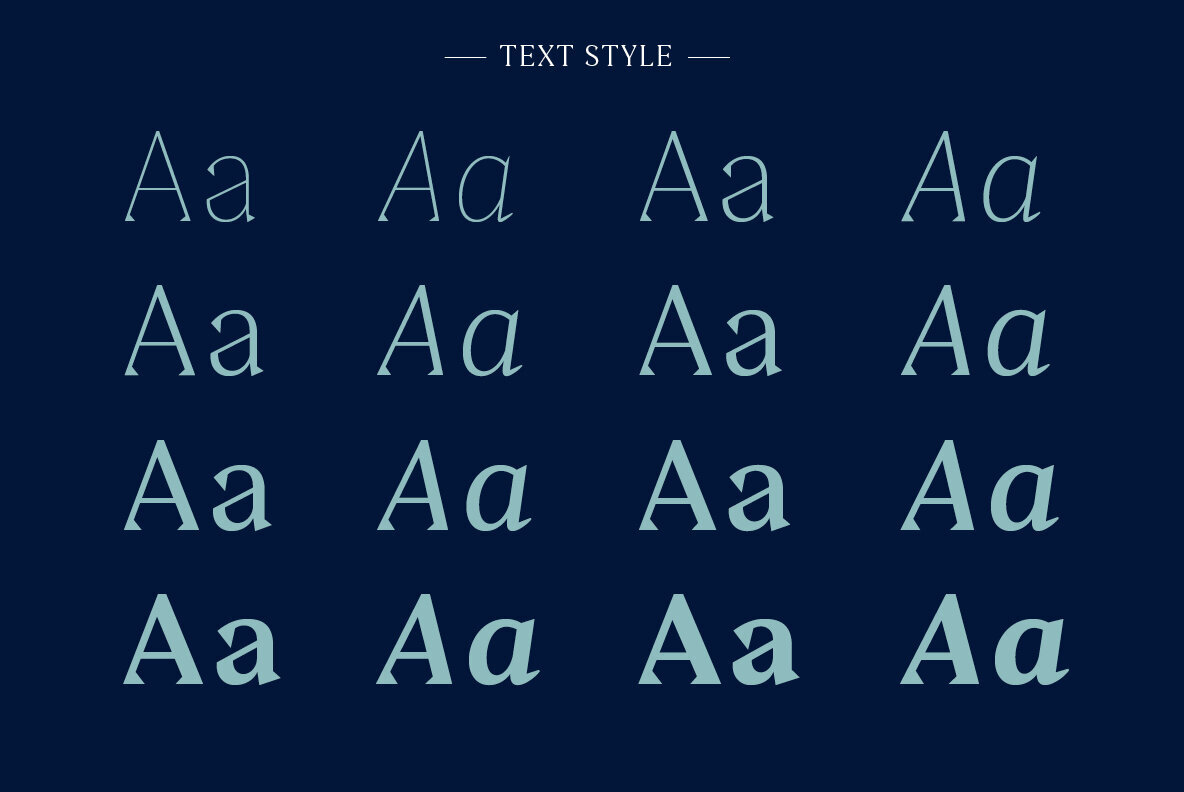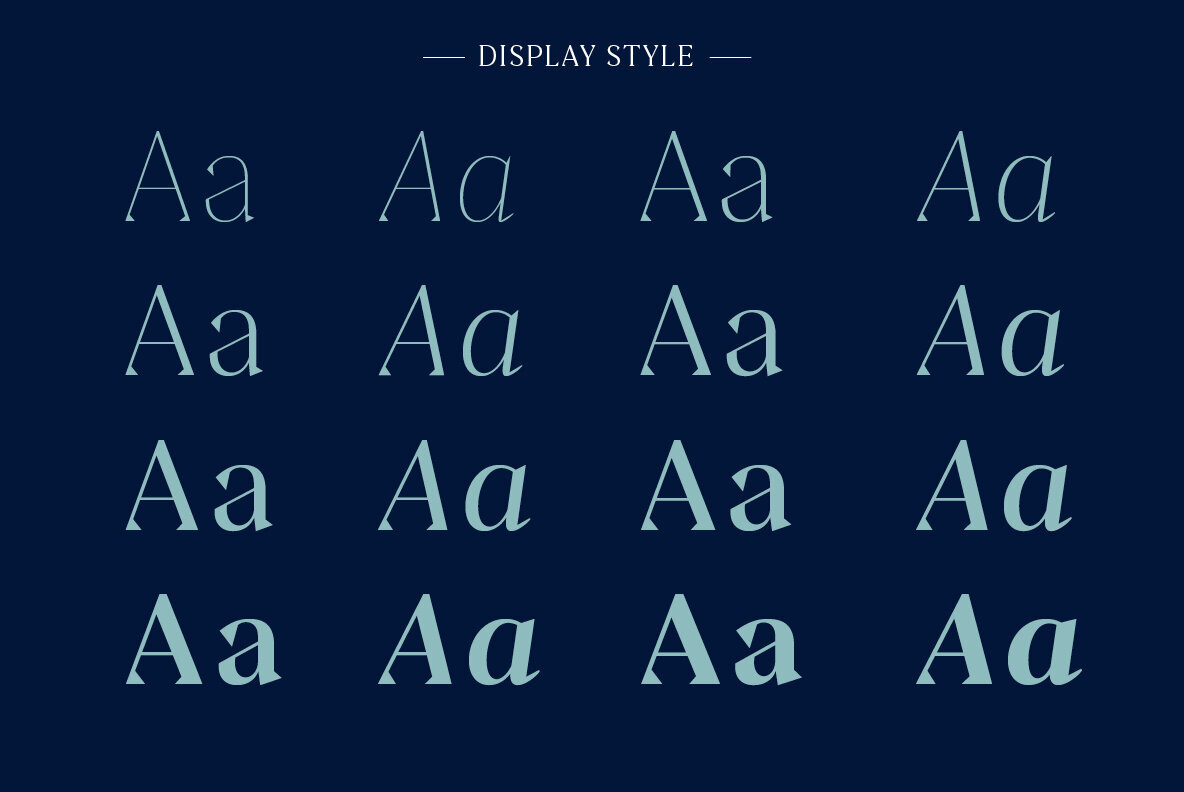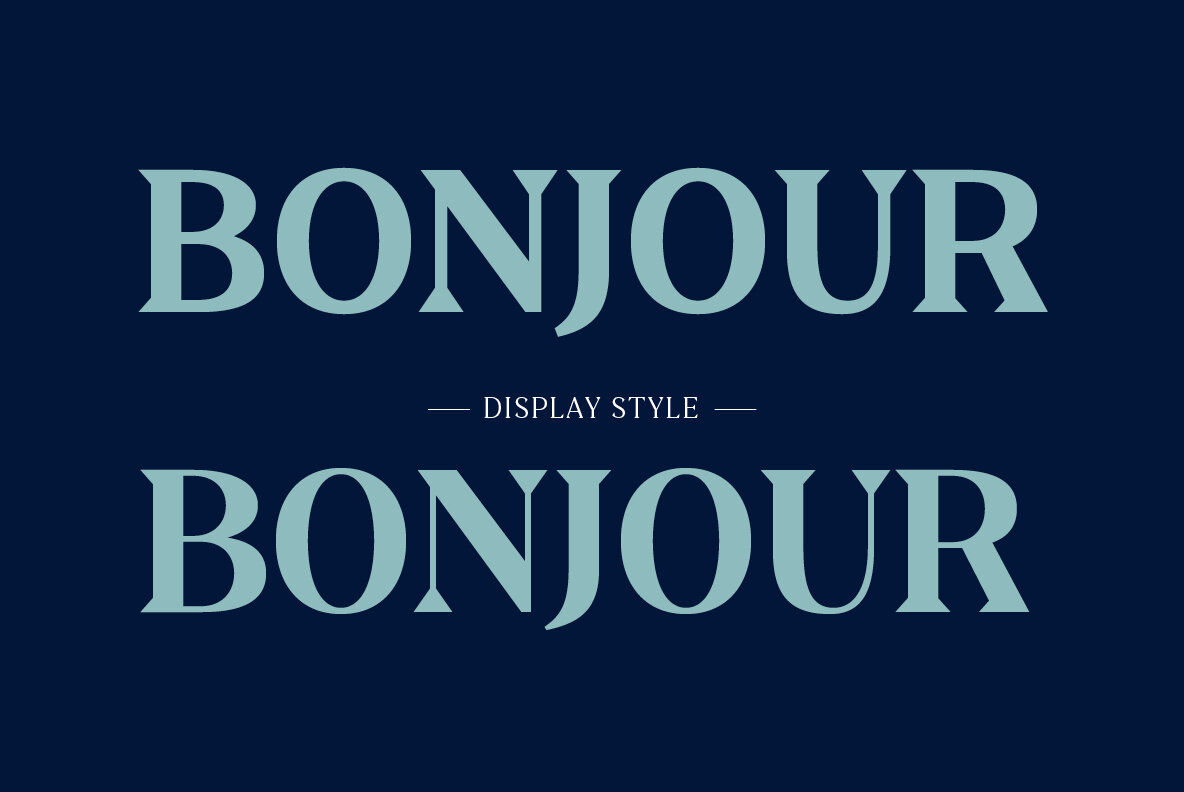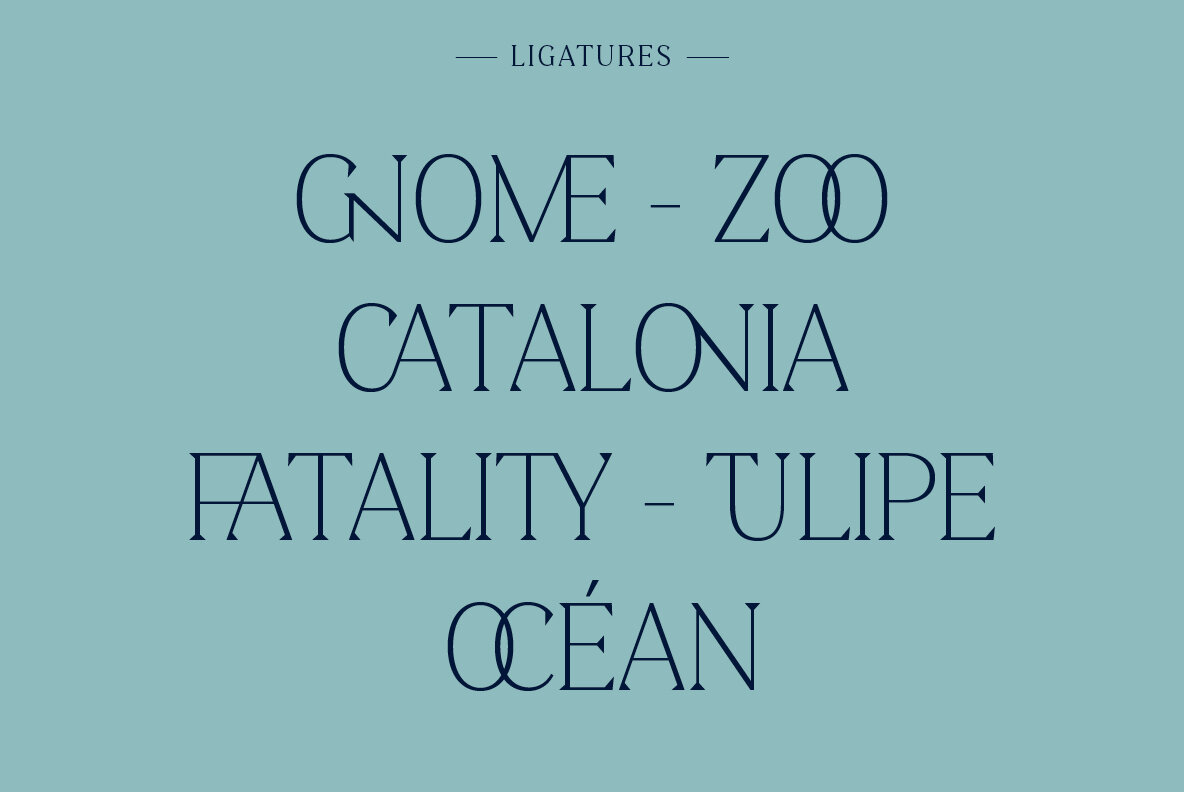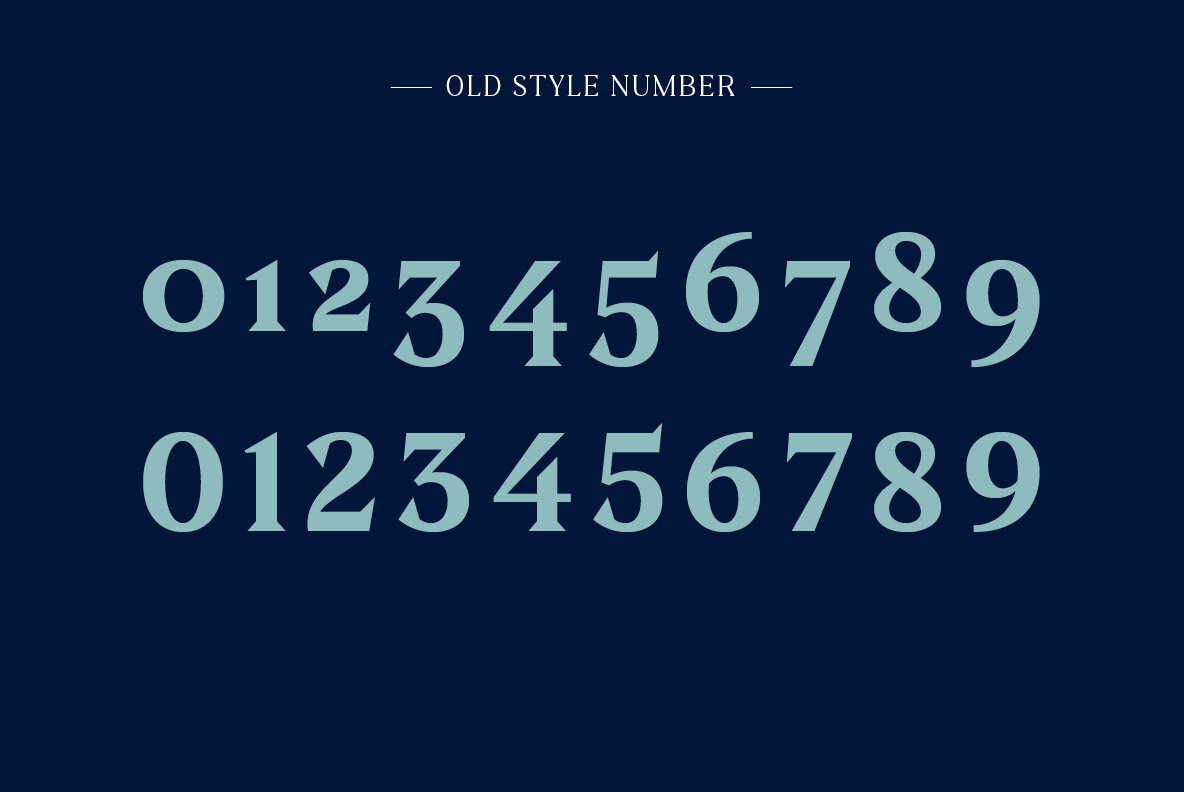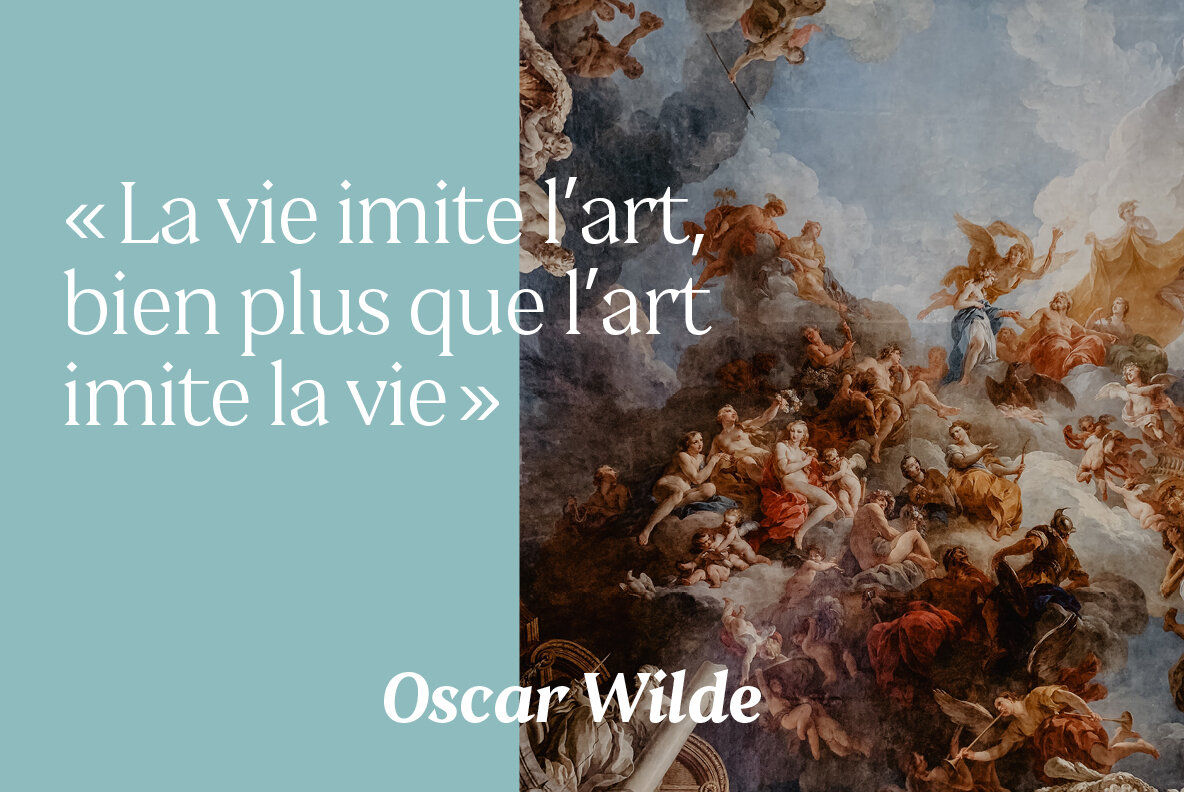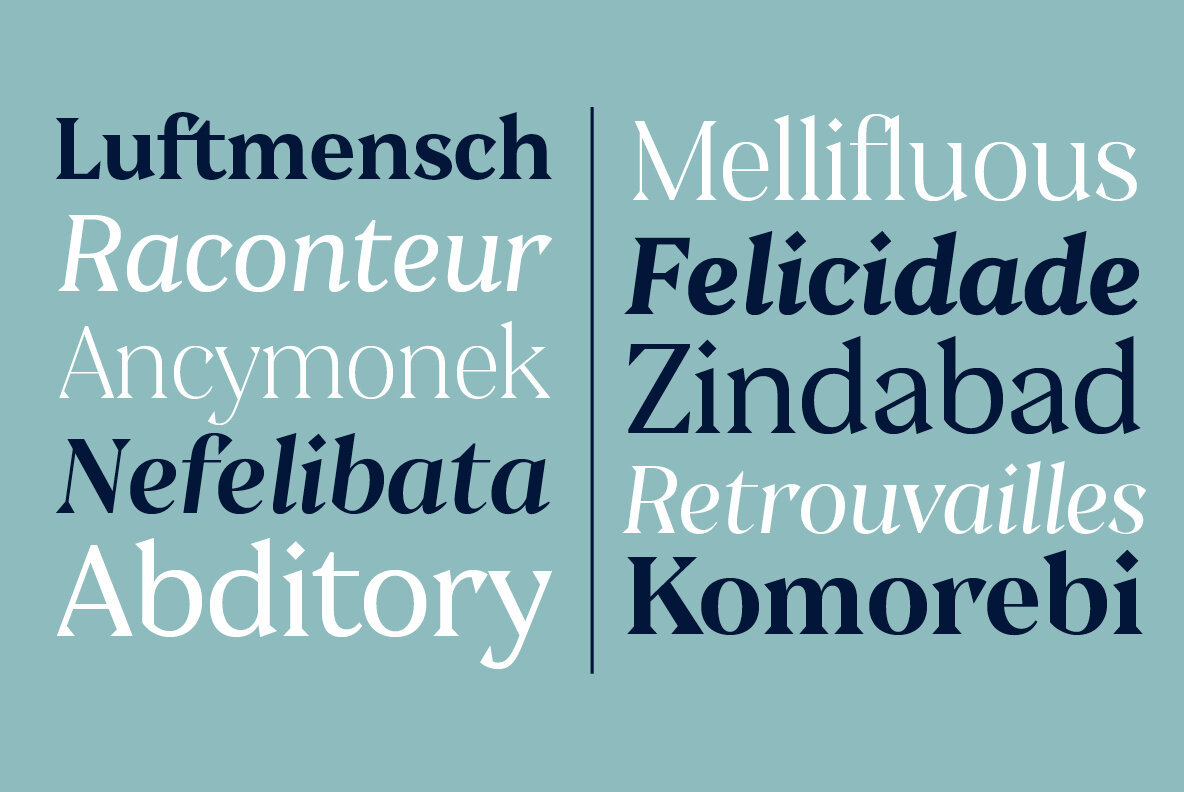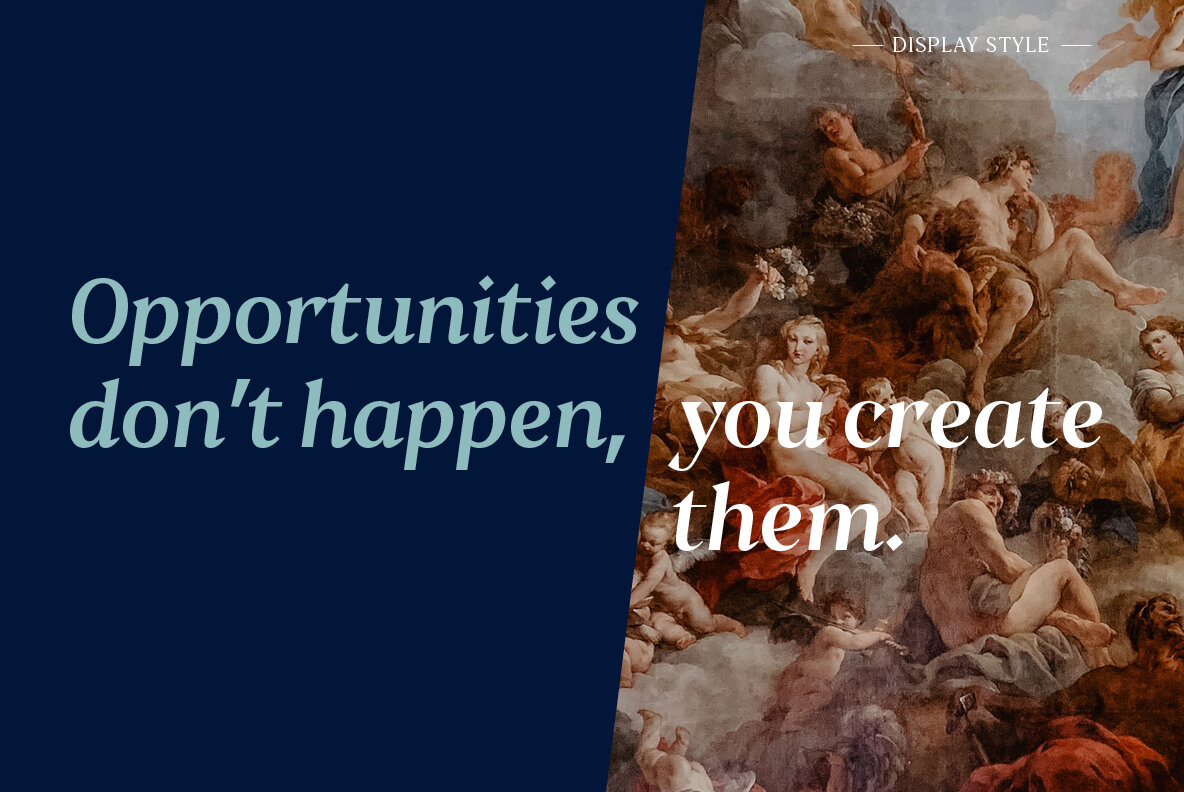
Clarinette Font
Clarinette is a sophisticated 32-style typeface designed to strike a harmonious balance between softness and sharpness. Carefully crafted with triangular serifs, it exudes visual strength and carries a distinctive personality. Meanwhile, its gentle and dynamic lines add a touch of elegance. With a wide range of weights, Clarinette offers exceptional versatility. Its display capabilities enable seamless multitasking, making it suitable for various applications. From magazine titles to newspapers and logotypes, its high contrast version demands attention. Similarly, the low contrast variant provides a practical choice for text and editing purposes. Discover the allure of Clarinette, where subtle strength takes center stage. Let this refined typeface elevate your designs with its understated yet impactful presence.
Océane is a french graphic and type design since 2016. In 2020, she published her first font, Honesty, a 16-style flared, lapidary or incised sans typeface family that took inspiration from the Trajan column carvings and Berthold Wolpe's Albertus (1938). Two typefaces are currently published.